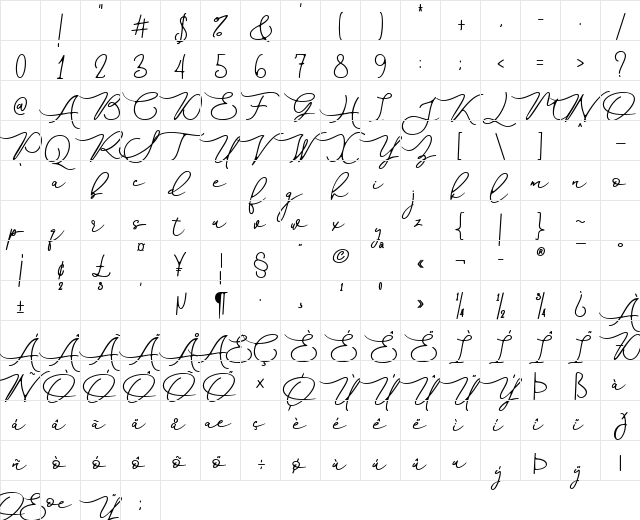
Complete Brattica Regular glyph index. Displaying only characters natively supported by Brattica Regular font.
Brattica is a composed and adaptable typeface that performs quietly and consistently across a wide range of design contexts.